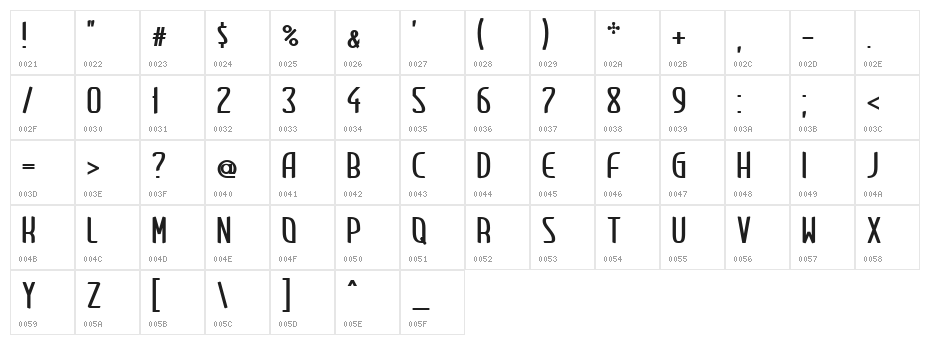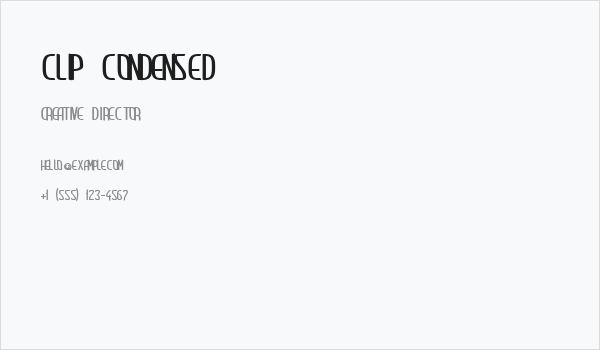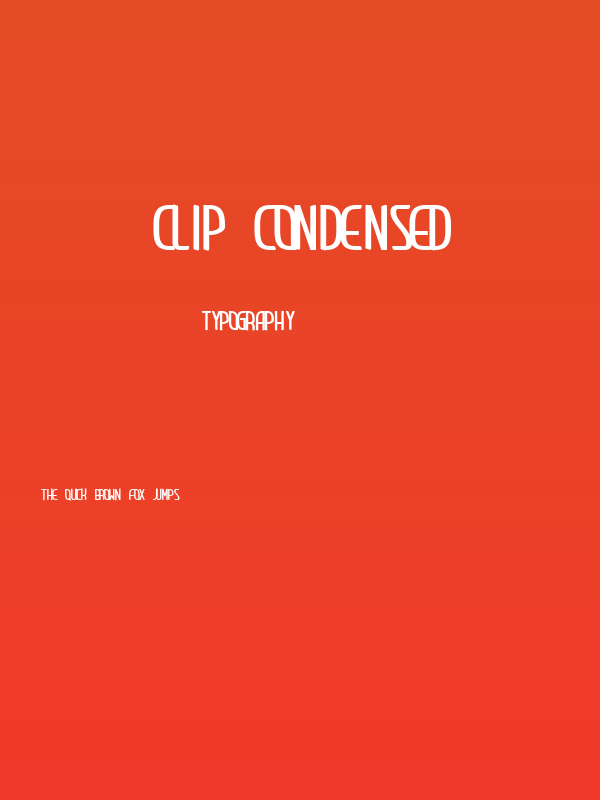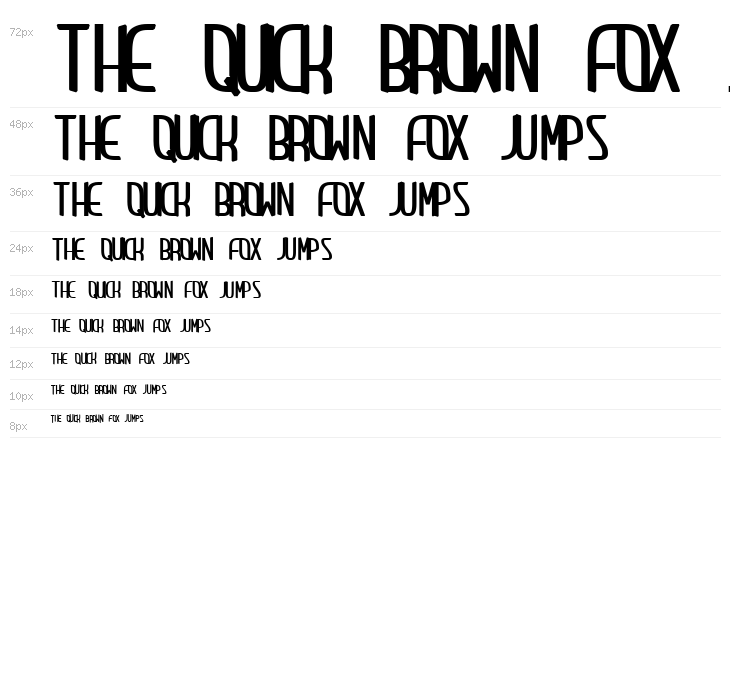
Clip Condensed Font
Clip Condensed Description
This font features a bold and condensed style, characterized by its tall and narrow letterforms. The uppercase letters have a strong geometric influence, with consistent stroke widths that give it a modern and structured appearance. The lowercase letters maintain the same condensed form, ensuring uniformity across the typeface. Numbers are equally bold and condensed, providing a cohesive look throughout. Special characters are designed to match the overall aesthetic, making this font suitable for various applications where space is limited but impact is needed.
| Proposed Projects | Ideal for posters, headlines, branding, and any design requiring a strong visual impact in limited space. |